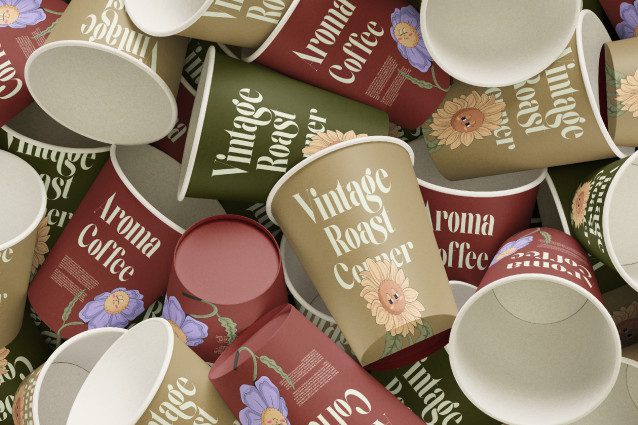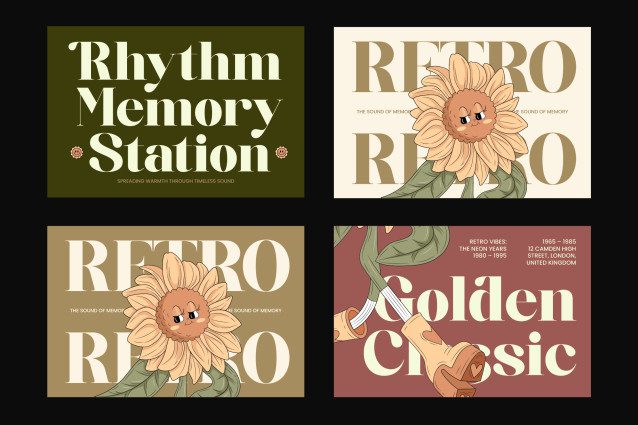
Blassic Font
Blassic – A New Modern Vintage Serif Display by Amorfatype
Blassic is a sophisticated modern vintage serif display font that fuses classic charm with refined contemporary details. Designed with elegant curves, balanced contrasts, and a subtle nostalgic flair, Blassic evokes the timeless beauty of vintage typography while staying perfectly relevant for modern design.
Every character in Blassic is crafted with attention to detail — combining sharp precision with smooth aesthetics to create a sense of heritage and modern luxury. Its stylish alternates and beautiful ligatures make it a perfect choice for logos, packaging, editorial headlines, and elegant branding concepts.
Whether you’re crafting a high-end brand identity, sophisticated magazine layout, or classic-inspired poster, Blassic delivers elegance, versatility, and timeless personality in every letter.